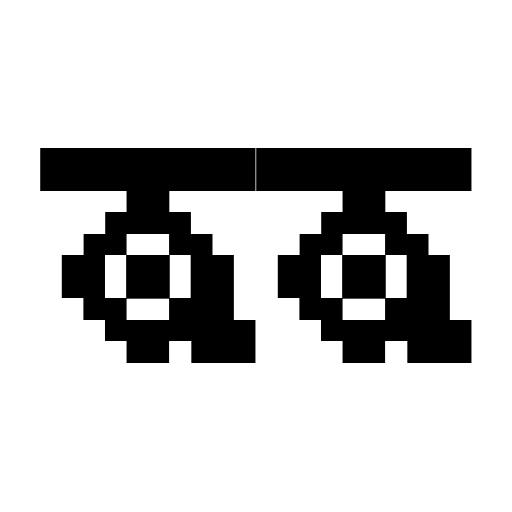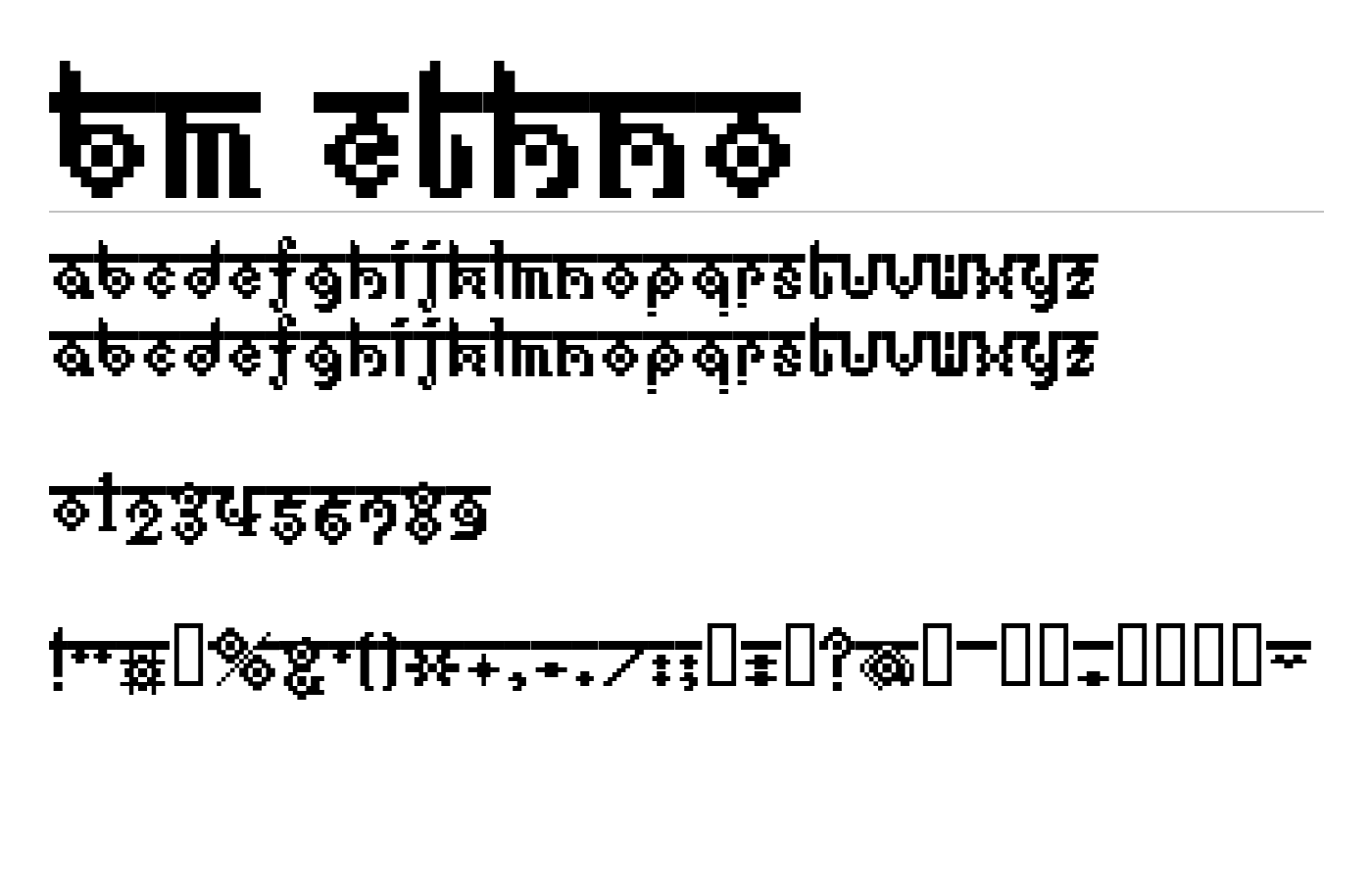
BM ethno is a pixelated, decorative display font with a distinctive ethnic and tribal aesthetic. Its blocky, geometric shapes and consistent stroke weight give it a bold, modern feel while evoking traditional, handcrafted motifs. This font works best for creative projects, logos, posters, and digital art where a unique, cultural vibe is desired.
BM ethno Font
About BM ethno Font